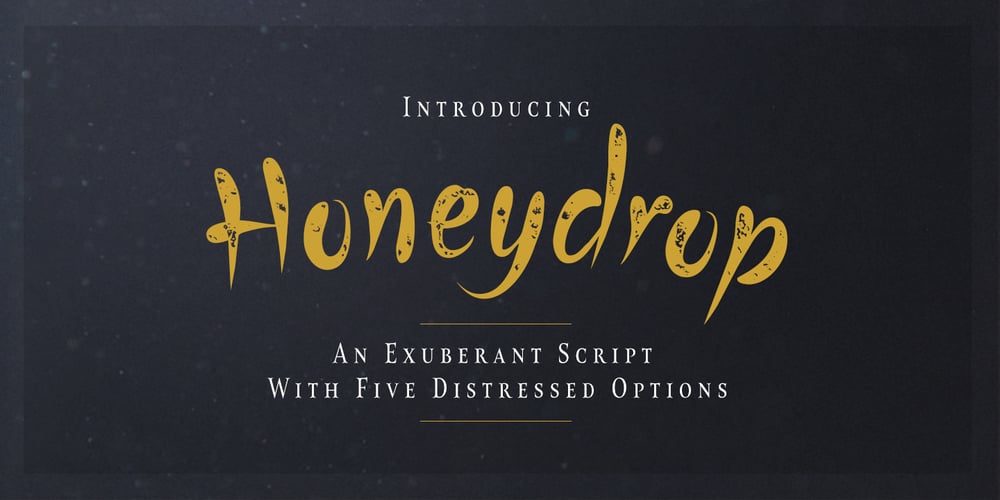
Honeydrop
Honeydrop font
Honeydrop Font Family was designed by Jeremy Dooley and published by insigne. Honeydrop contains 6 styles and family package options. Honeydrop is a script that mimics the action of a heavily-laden inky pointed brush, dancing across the page . Designed by Jeremy Dooley, its unique form is great for branding and packaging, especially for all-natural food items. The typeface also has a bit of Eastern flavor to it. Five different distressed variants make Honeydrop stand out. Its many alternatives help to advance your project. These variants allow you to change the final character of the lowercase letters. Besides, there are ligatures that extend the natural writing feel. Opentype override options round out the fonts, including random replacements to create a unique look and feel; each time you use the font you get a unique result. Each font has sixty five alternate characters. Also included are many unique textures that help the typeface adapt to different situations; you will find them of great use. Grab the extra sweet and flavorful typeface Honeydrop today.